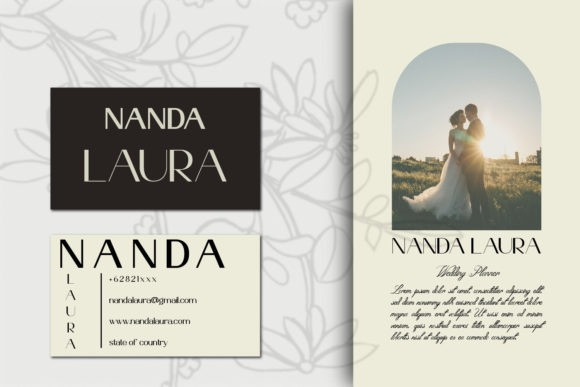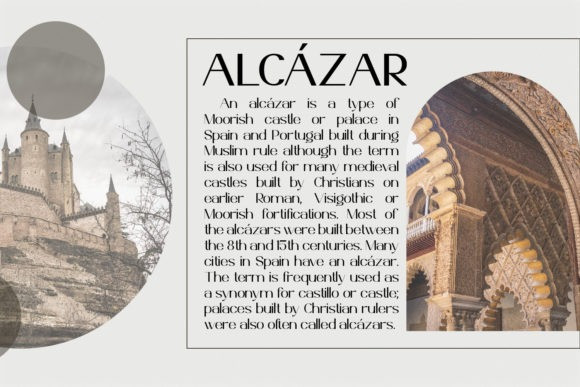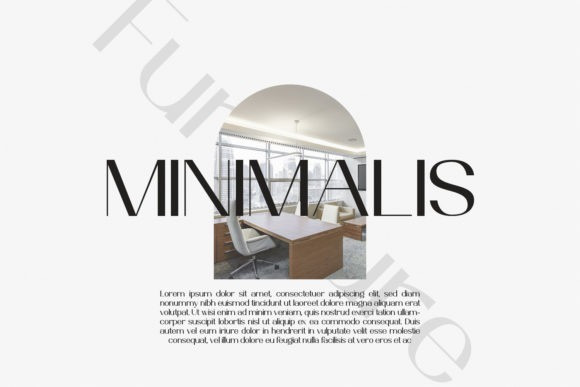
Ante Cf Sans Serif Font
This is a clean & simple sans serif font manufactured by Creative17studio. This font comes in many weights up to 18 weights. The contrasts between thick and thin make this font unique.
This font is made with modern characteristics which can give a bold impression in each character, making this font suitable for corporate needs for larger business needs.